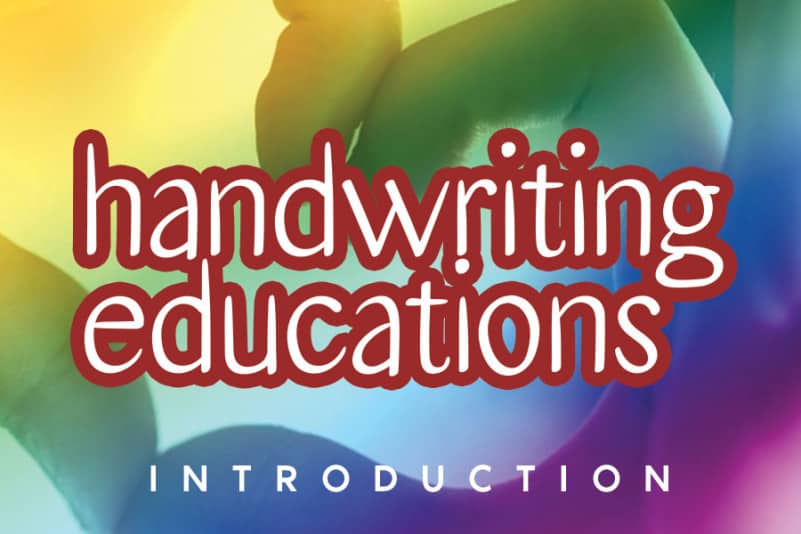
Hallo Holla Handwritten Font
Hallo Holla Handwritten Font is a sweet and friendly handwritten font. Its natural and unique style makes it incredibly fitting to a large pool of designs. The only limit is your imagination!
The latest style letters are perfect for wall displays, wedding invitations, social media post logos, advertisements, product packaging, product designs, labels, photography, watermarks, invitations, stationery, and any project that requires taste handwriting.